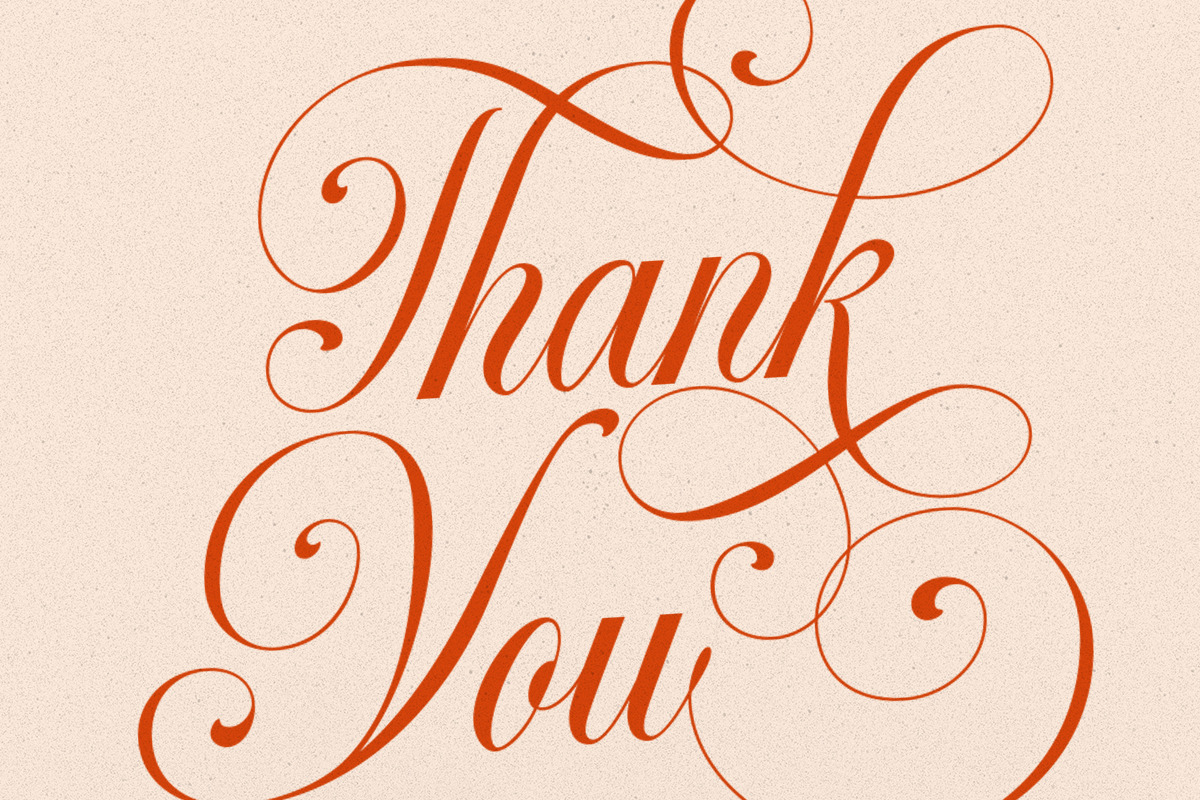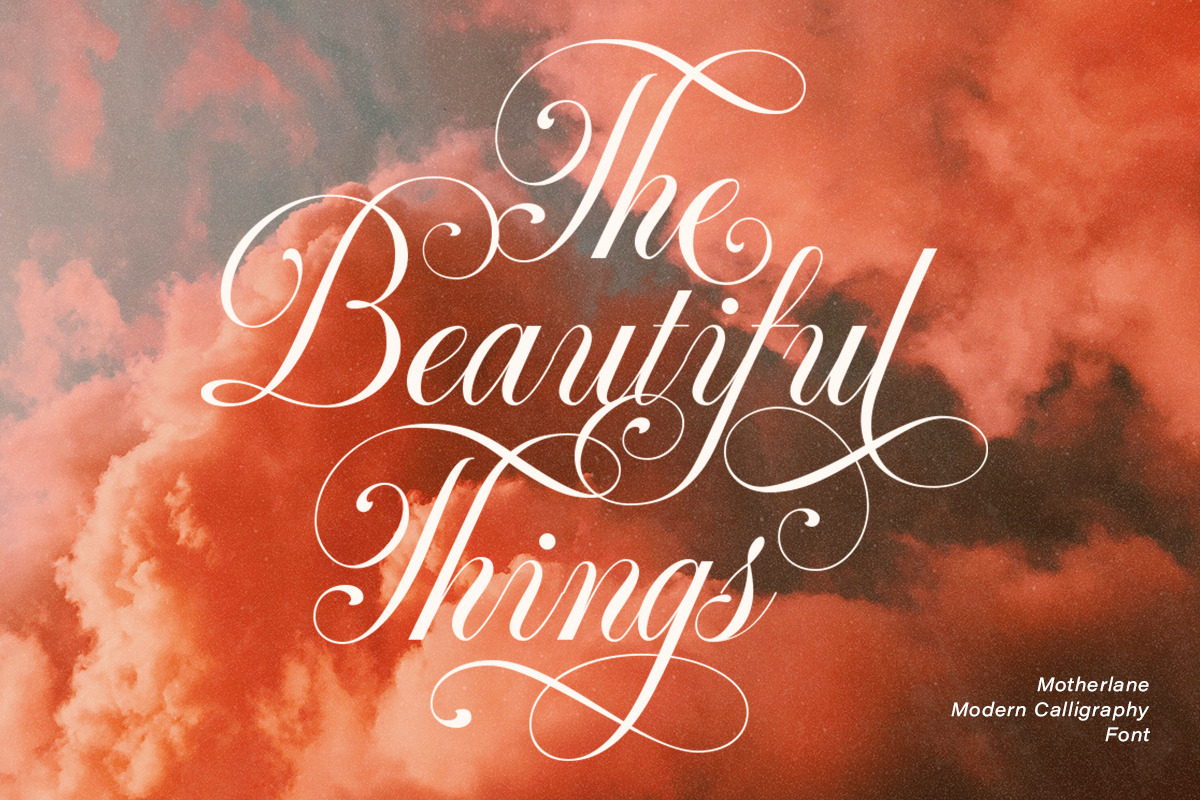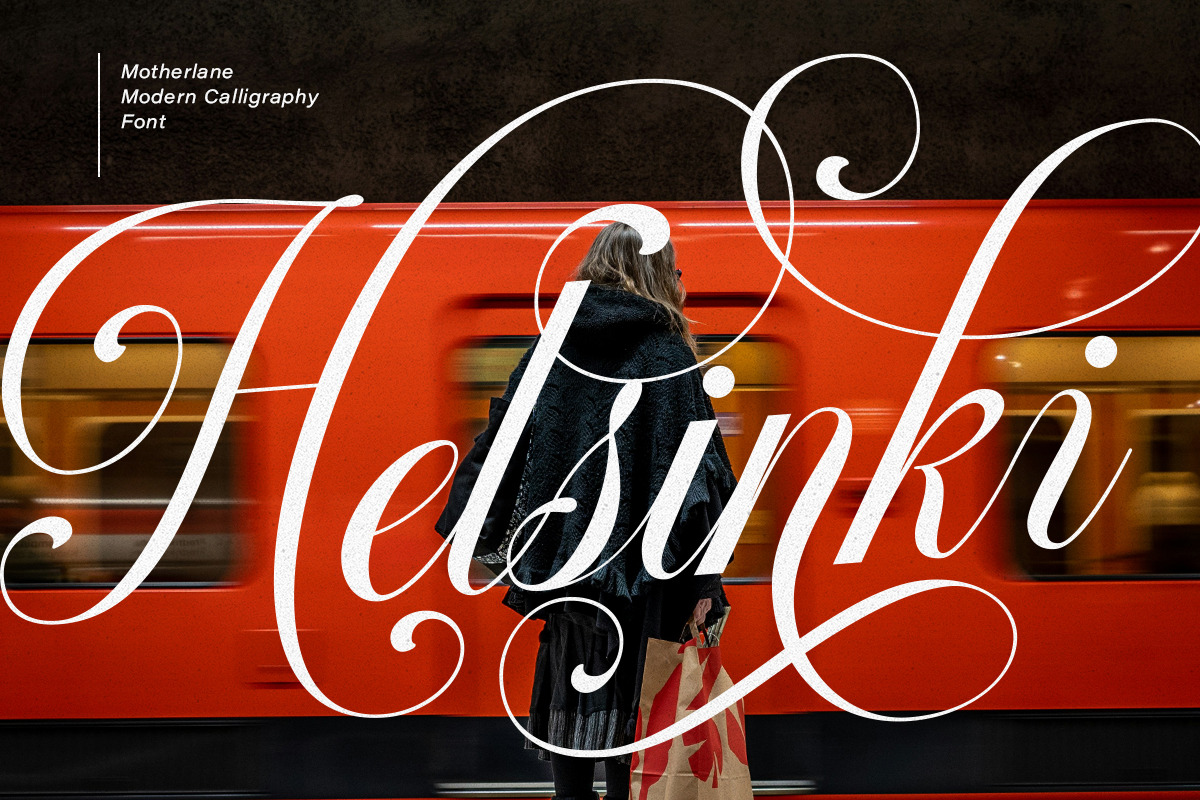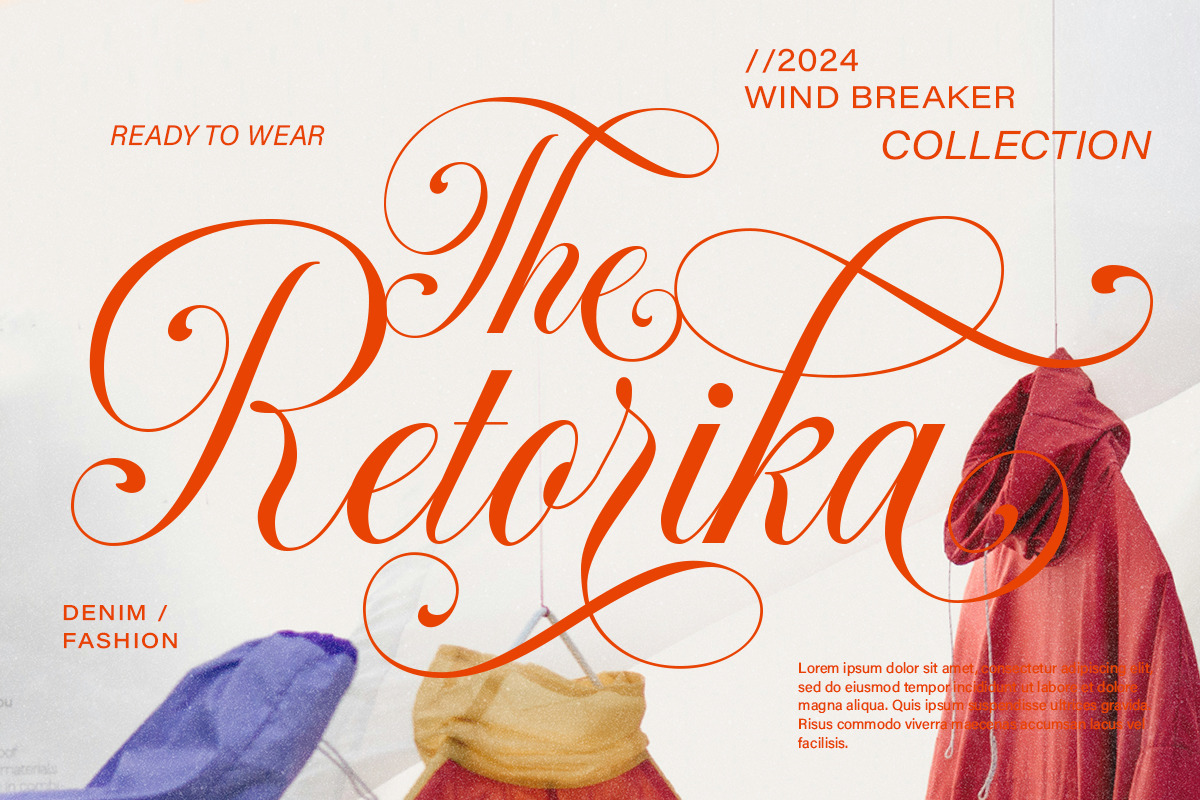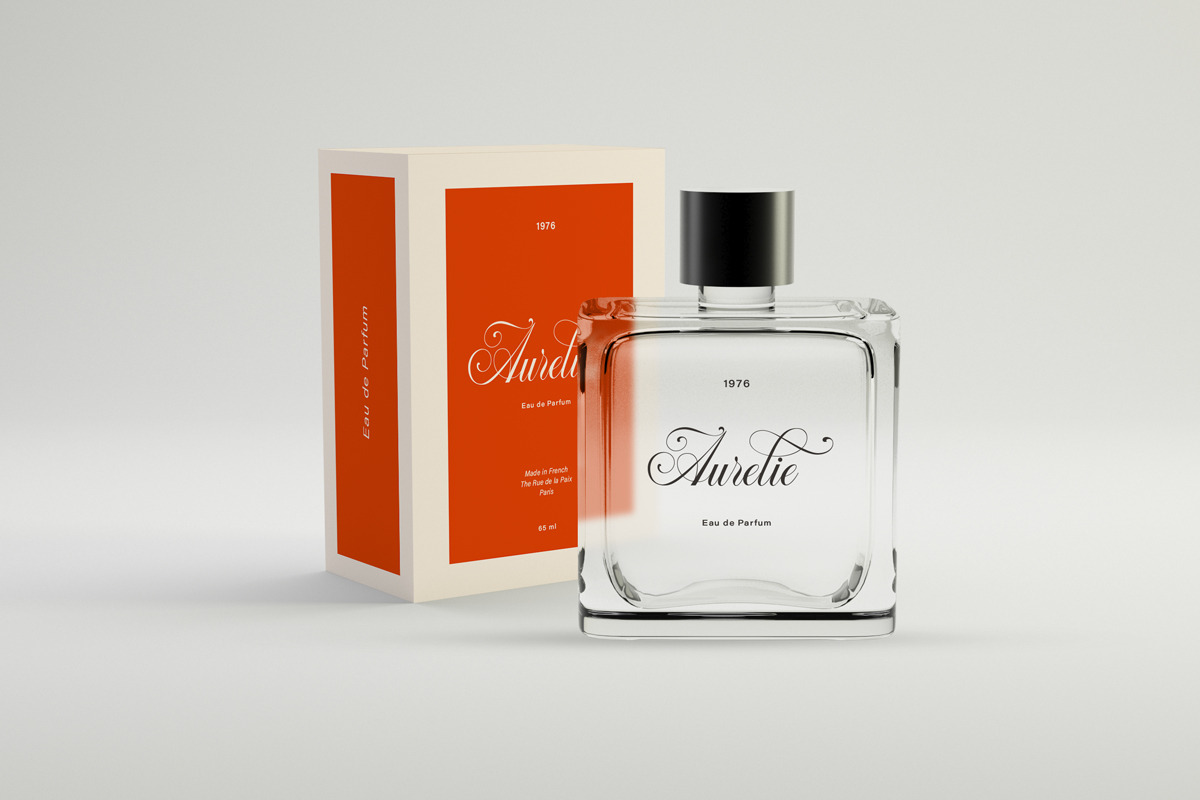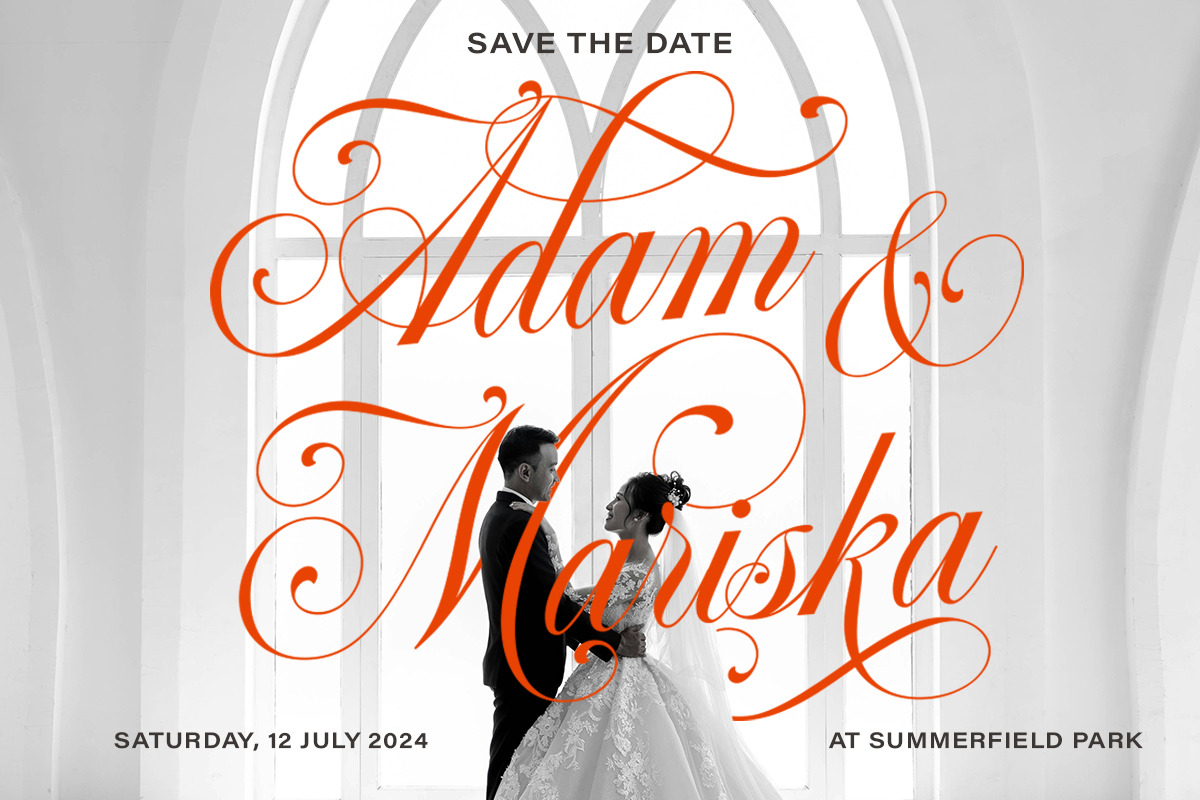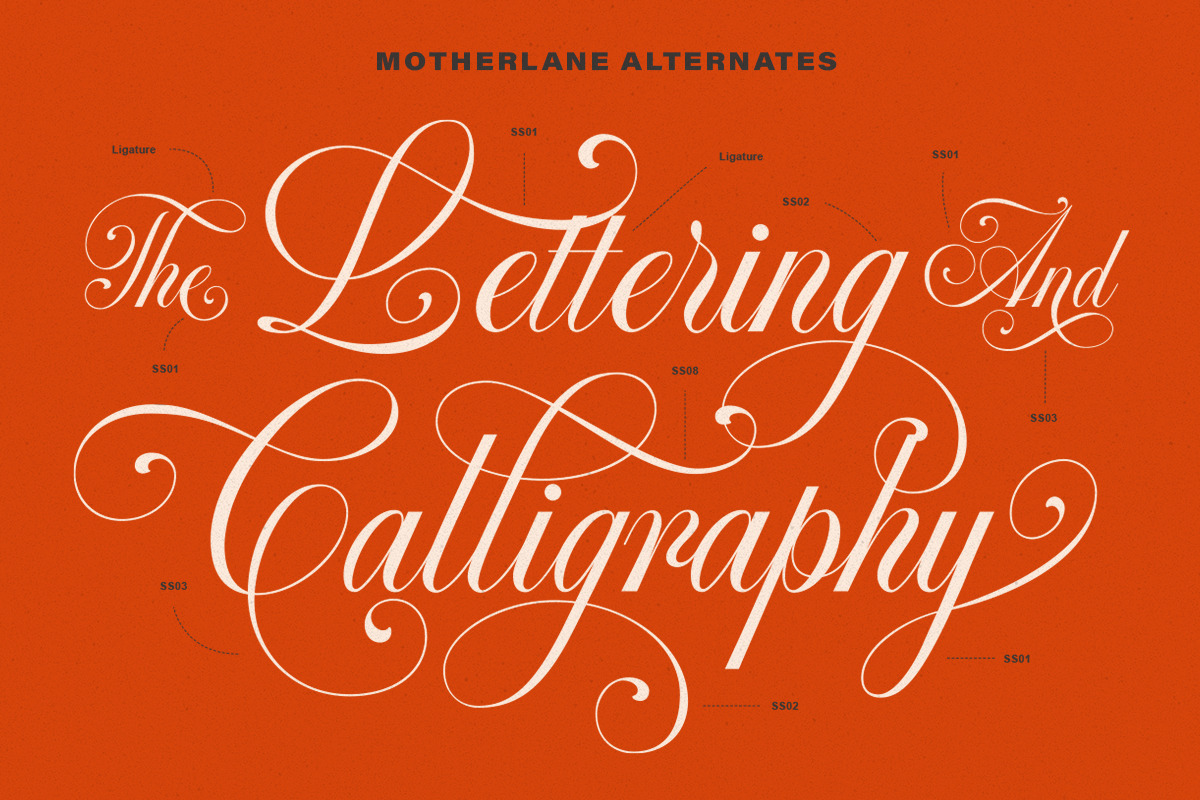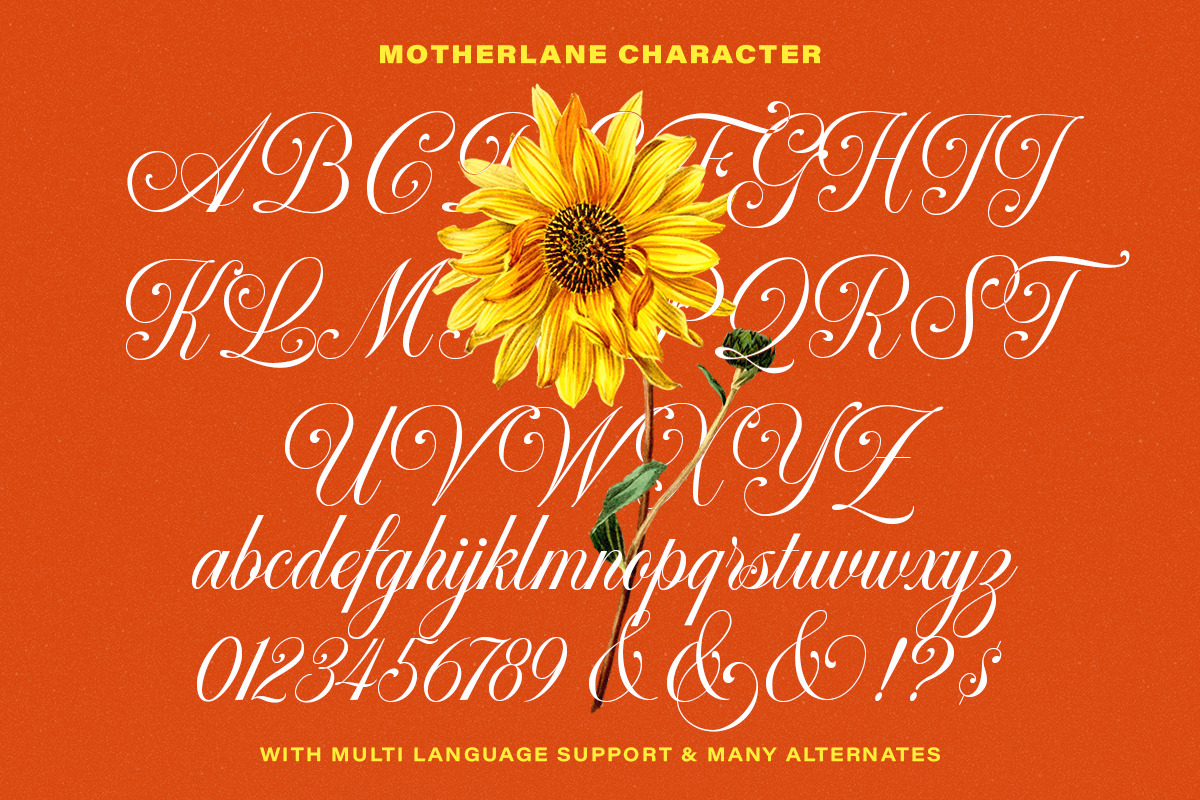
Motherlane Modern Calligraphy
Motherlane is a elegance modern calligraphy script based on manual hand writing. The natural flow with the swashes make this font looks even more prettier. This type of font perfectly made to be applied especially in wedding invitation, labels, logos, magazines, books, greeting / wedding cards, packaging, fashion, make up, stationery, novels, labels or any type of advertising purpose.